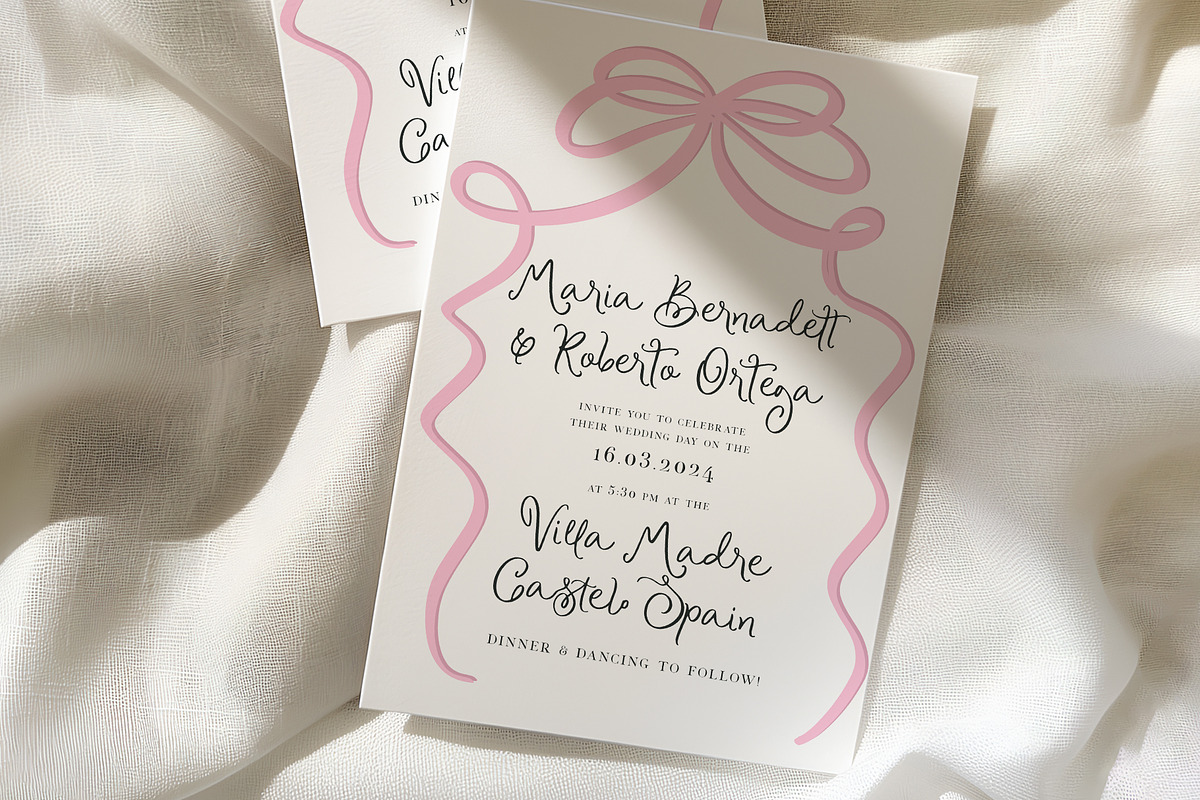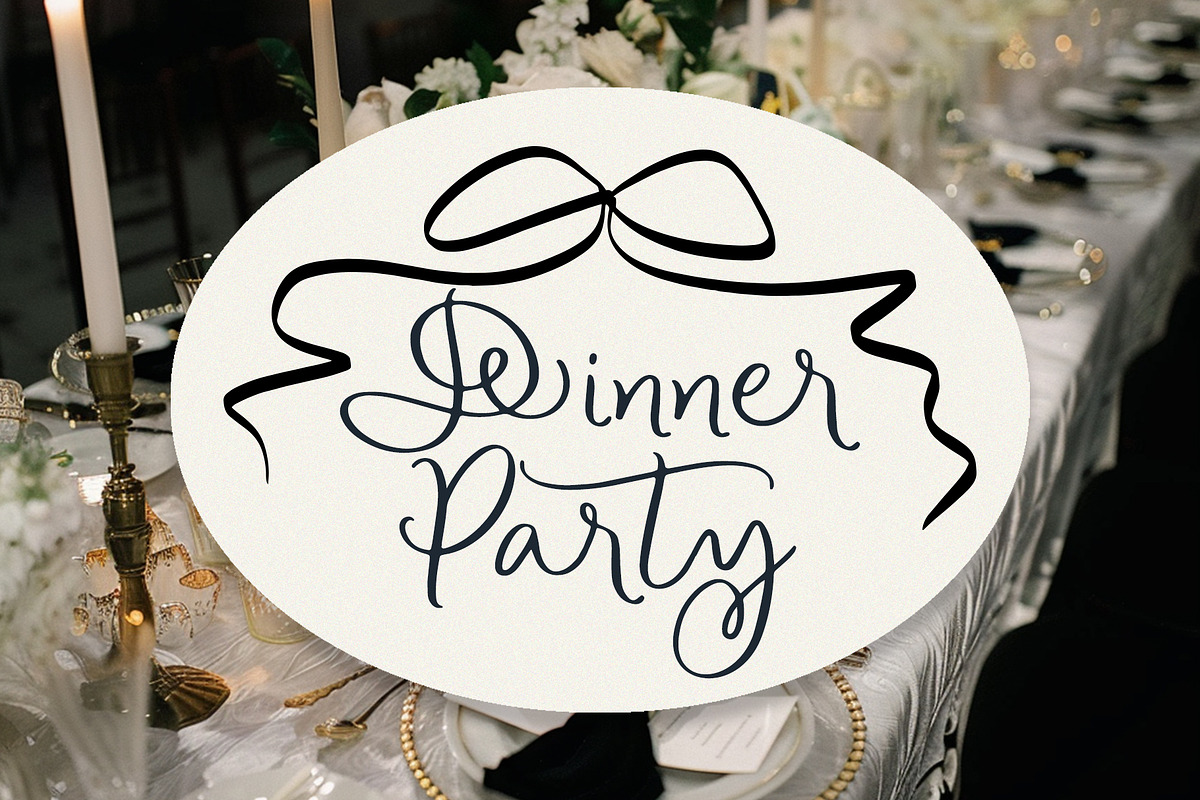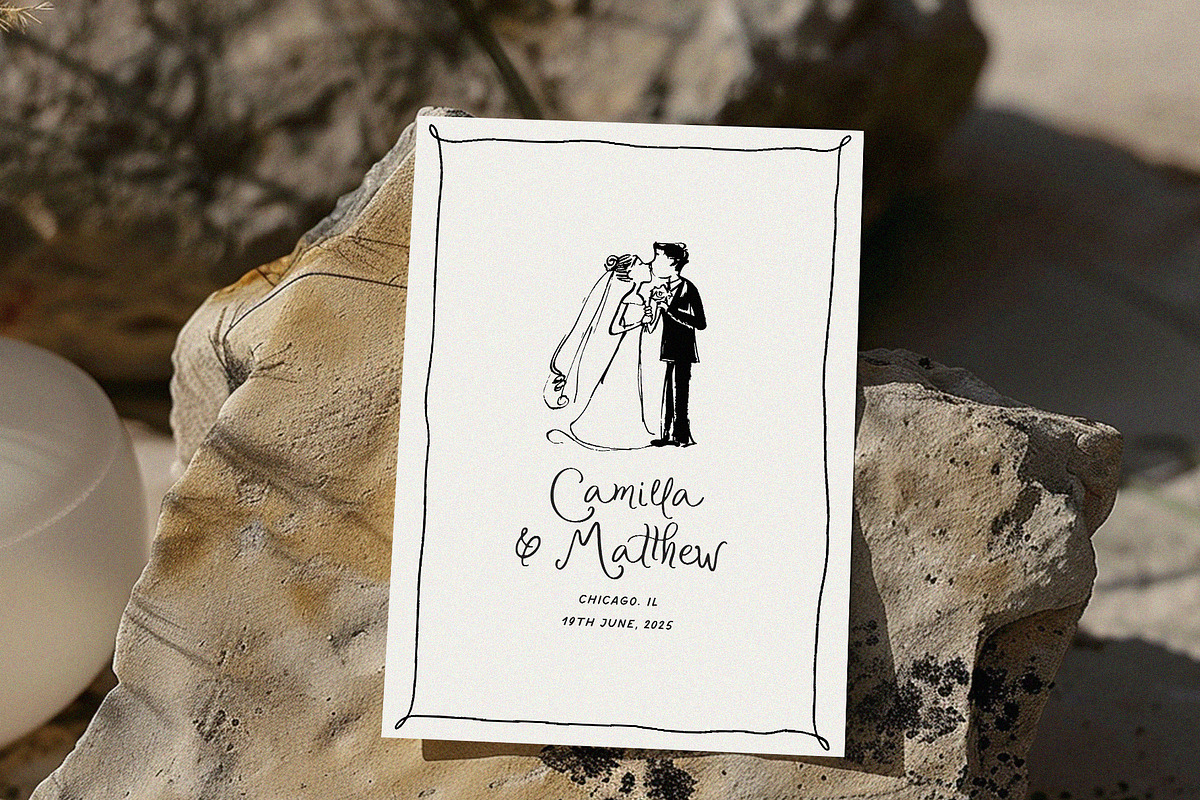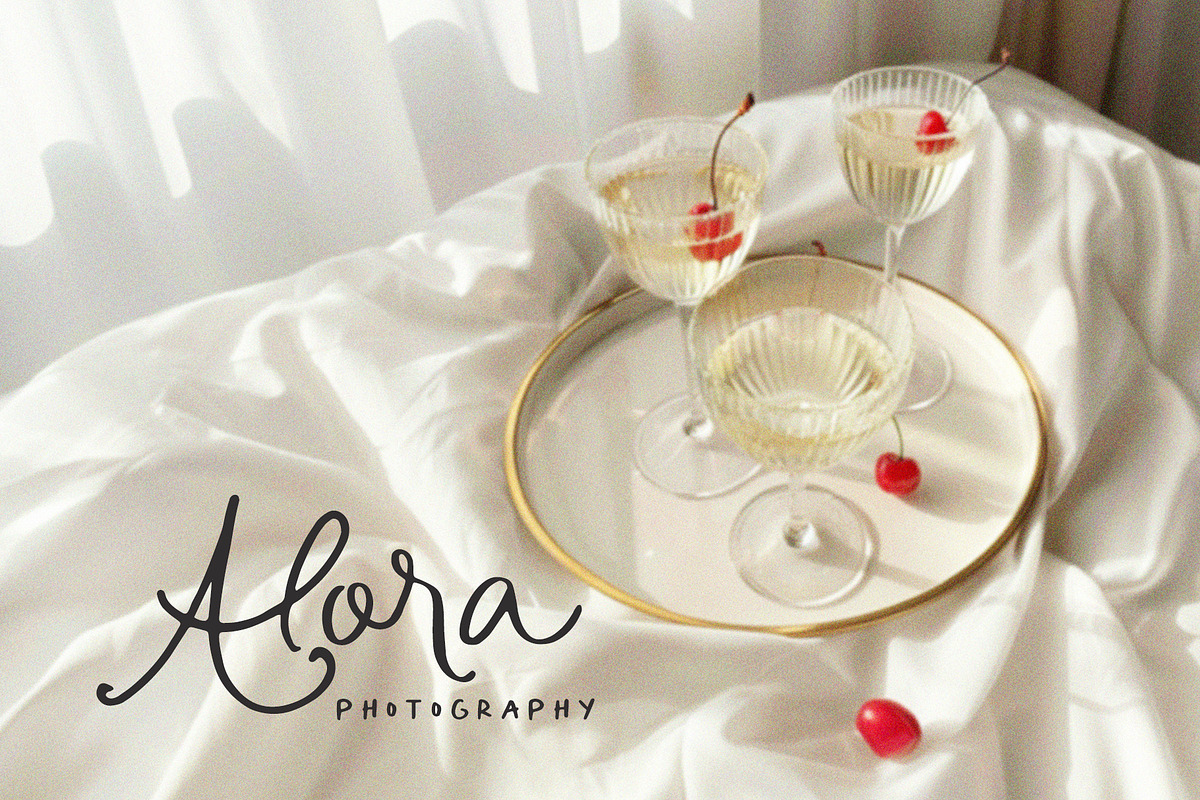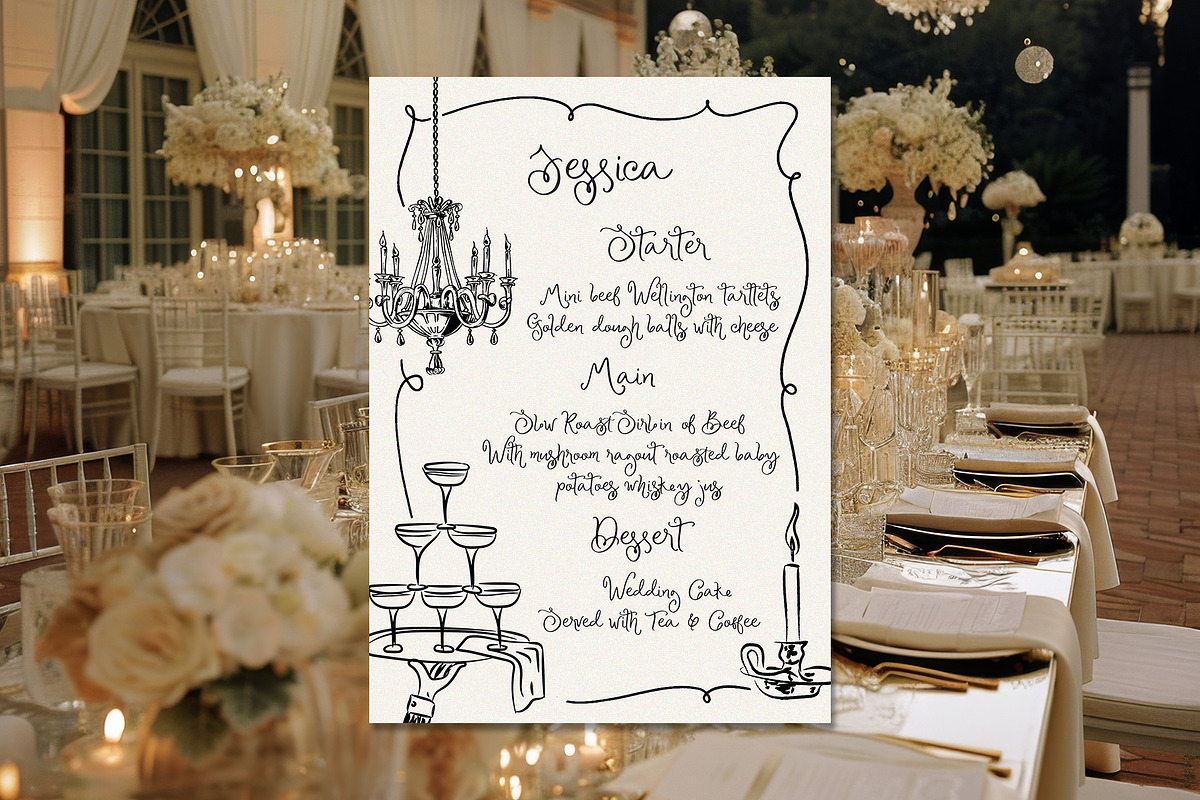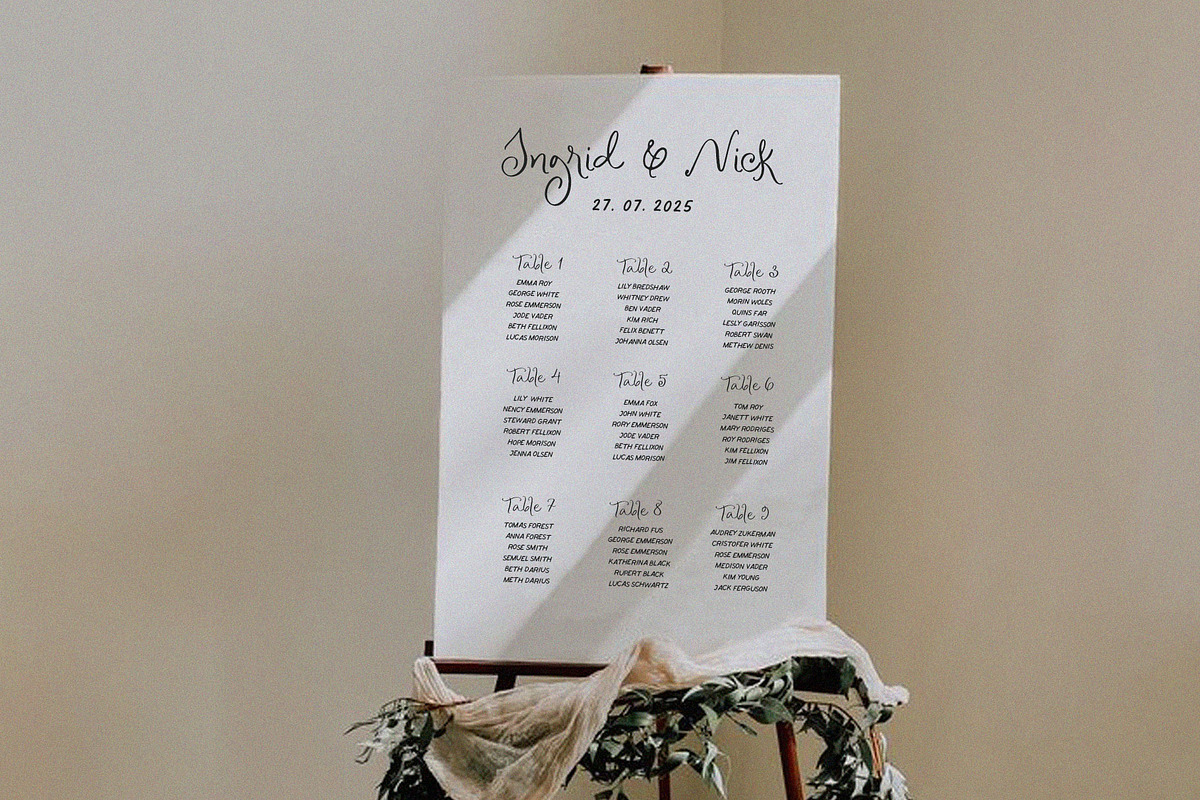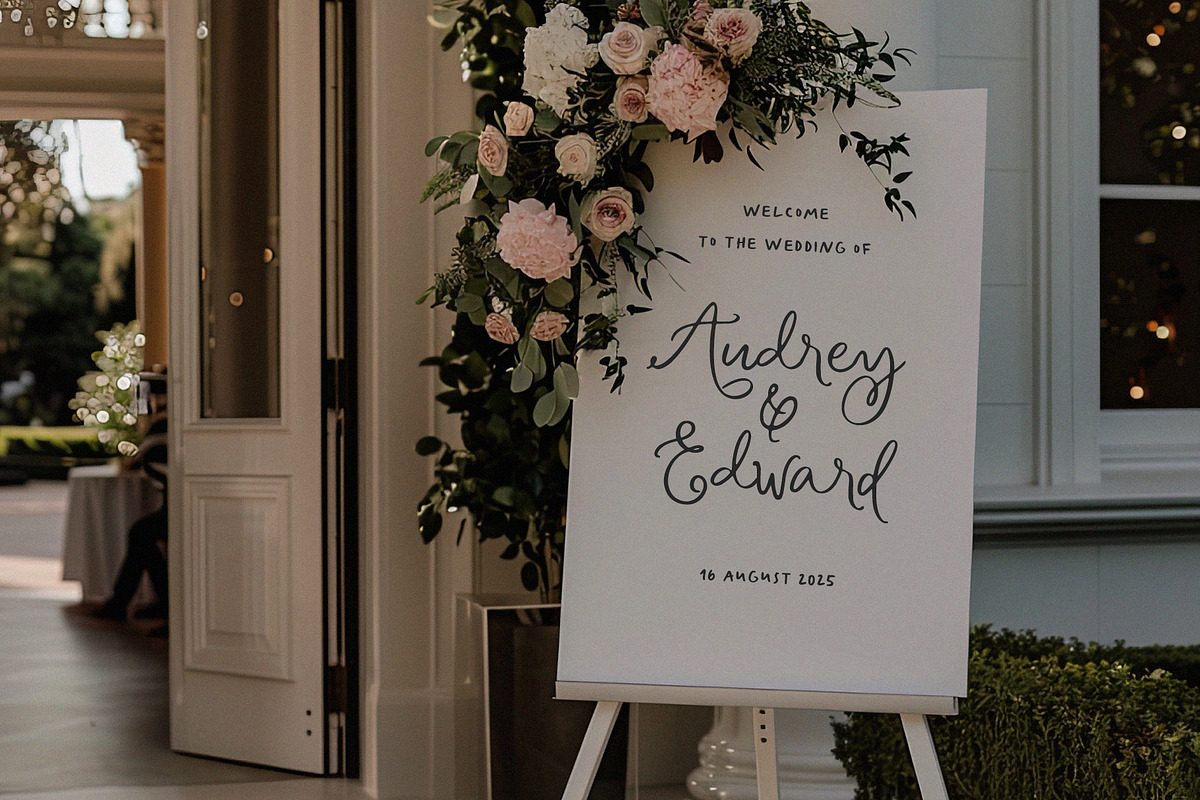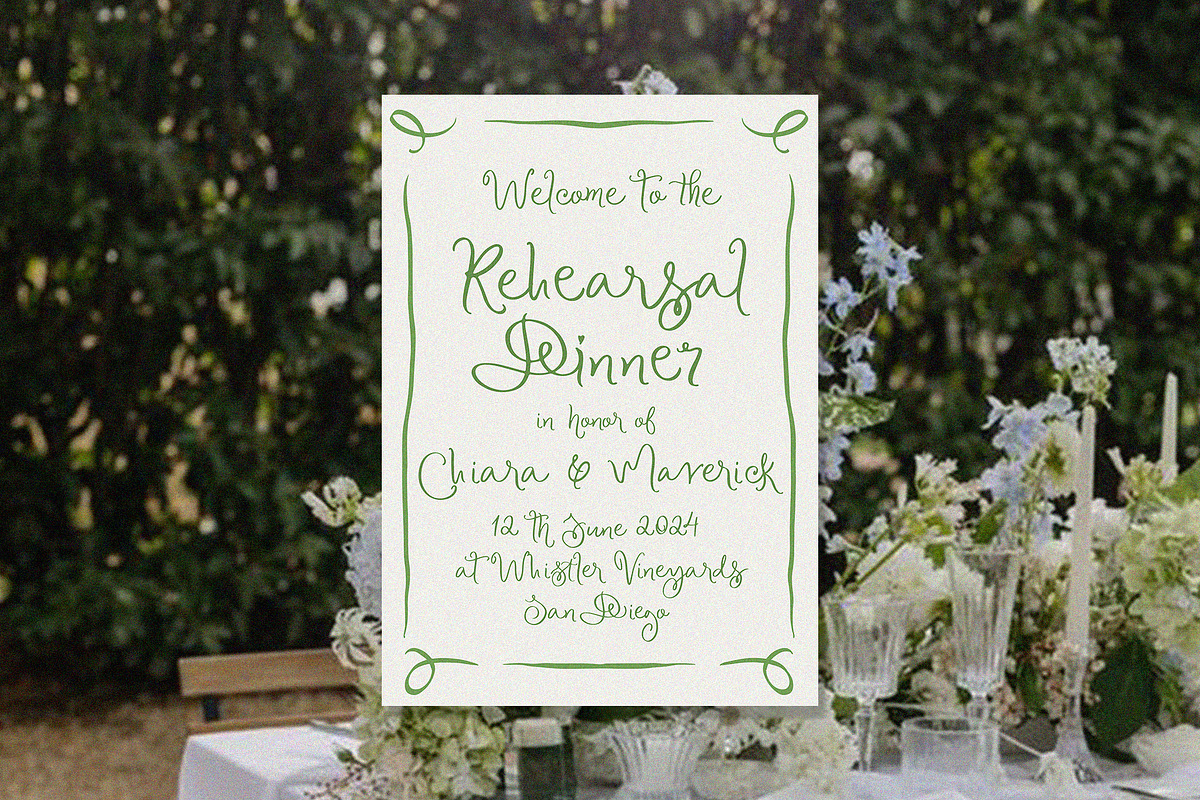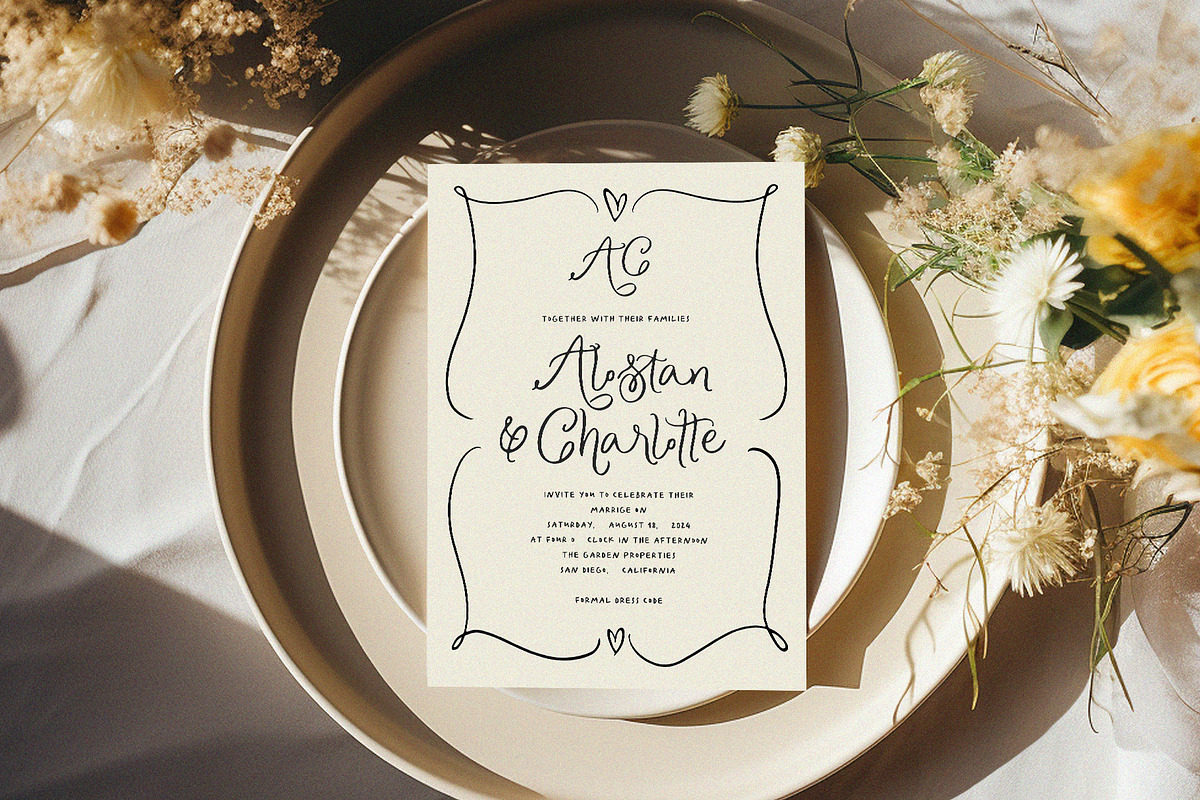
Cher Jardin | Whimsical Handwriting
Introduce you the new trendy whimsical font. The perfect choise for the 2024-2025 Wedding Season.
It will look lovely for handwritten wedding invitations, menu, modern wall arts, instagram posts, quotes, branding. Cher Jardin includes full set of Uppercase and Lowercase Basic Characters, Numbers, Punctuation, a lot of alternatives and ligatures.